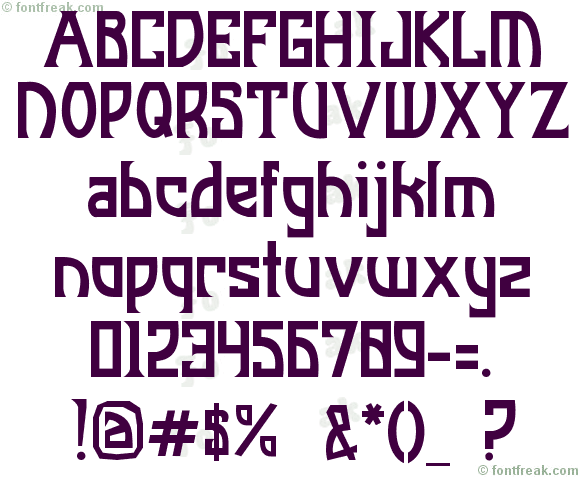
JI Manhattan
The JI Manhattan font, designed by Jeri Ingalls in 2001, is a striking display typeface that showcases a unique blend of modern aesthetics and classic influences. As a decorative font, it features bold, geometric letterforms that evoke a sense of urban sophistication and contemporary style. The stroke weight is consistent, providing a sense of unity across all characters, with a slight contrast that adds visual interest without overwhelming the viewer. The spacing between letters is thoughtfully calibrated, ensuring readability while maintaining a distinctive flair.
This versatile font is ideal for a variety of creative applications. It excels in wedding invitations, where its elegant yet bold appearance can beautifully convey the significance of the occasion. Additionally, JI Manhattan is a fantastic choice for movie posters, lending an air of drama and excitement that captures attention. Restaurant menus can also benefit from this font, as its modern design can elevate the overall dining experience, making it appealing to patrons. Furthermore, it is well-suited for branding projects, especially for businesses looking to create a memorable visual identity.